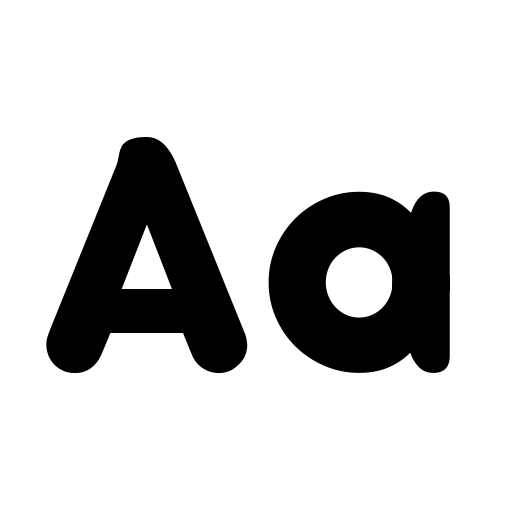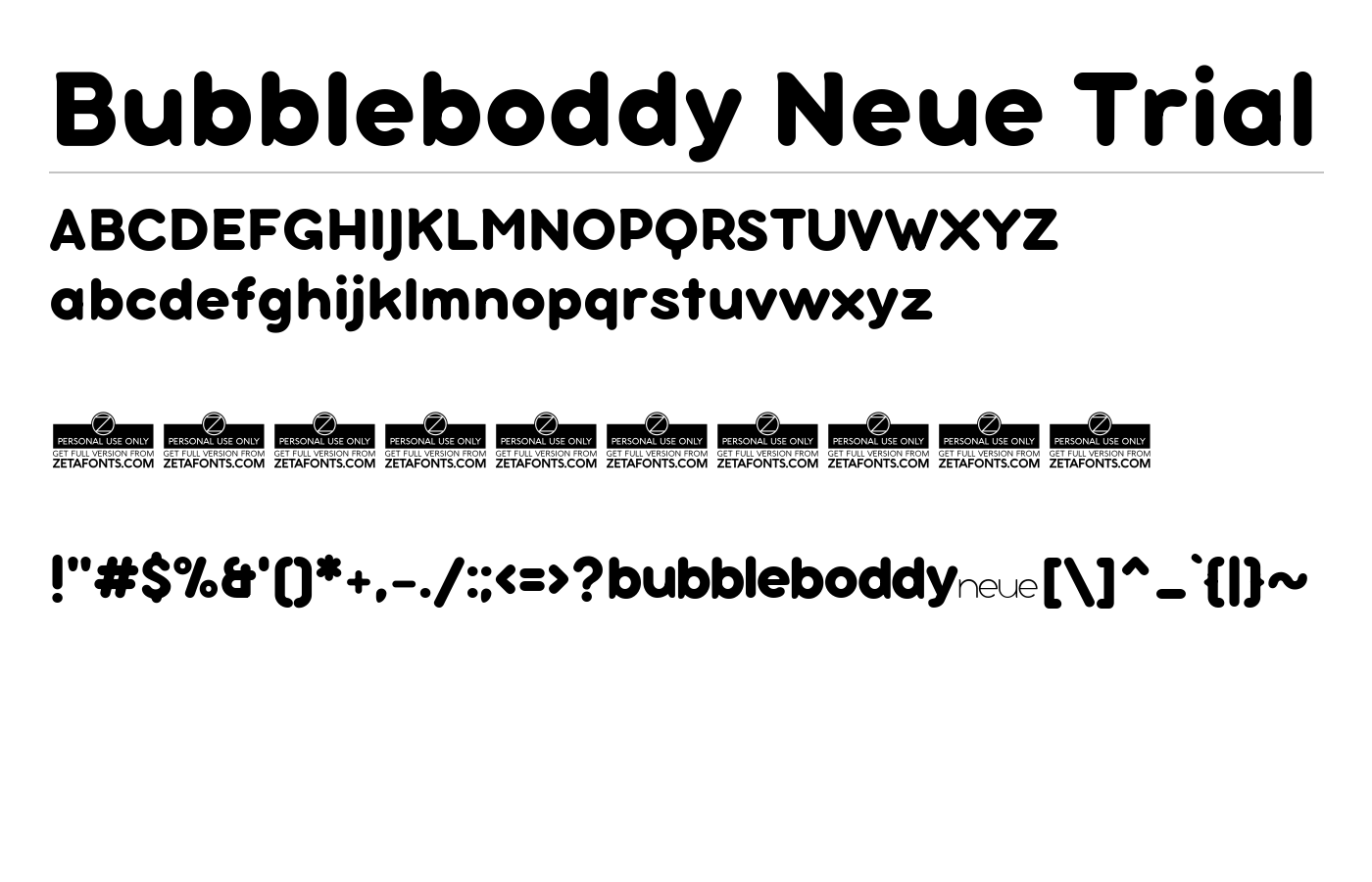
Bubbleboddy Neue Trial is a bold, rounded sans serif font characterized by its soft, geometric shapes and playful, friendly appearance. With its high x-height, uniform stroke weight, and smooth curves, it delivers excellent readability while conveying a modern and approachable vibe, making it ideal for branding, packaging, and headlines where a warm, inviting tone is desired. The font’s unique letterforms, such as its single-story 'a' and distinctive 'Q' tail, add personality without sacrificing clarity.
Bubbleboddy Neue Trial Font
About Bubbleboddy Neue Trial Font
| Font family | Bubbleboddy Neue Trial Font |
| Designer | Francesco Canovaro |